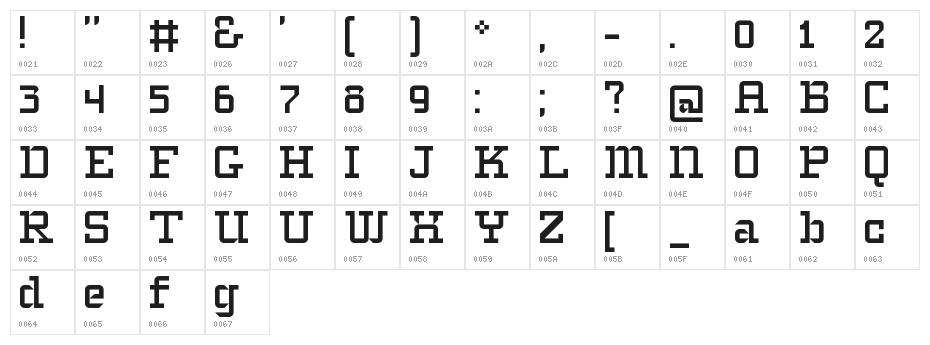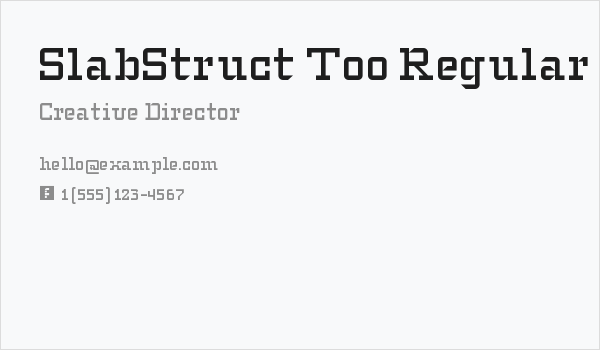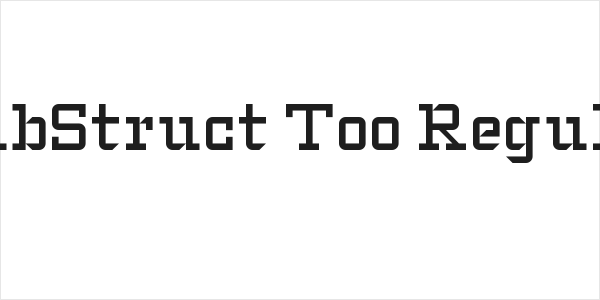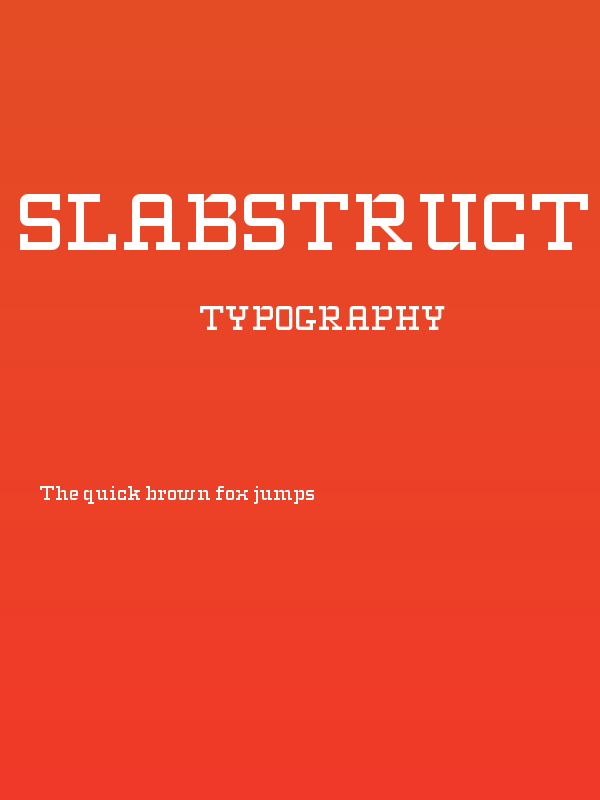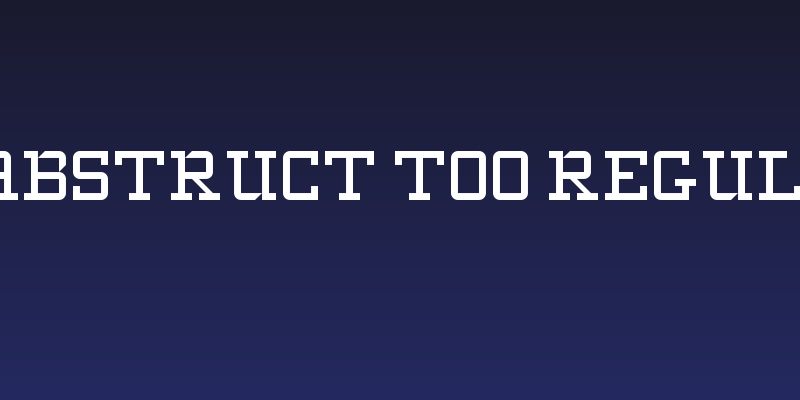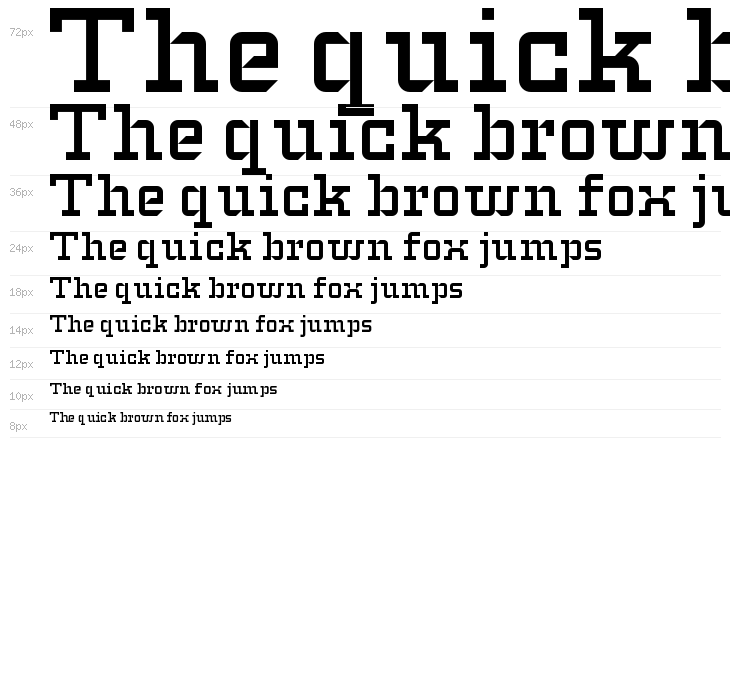
SlabStruct Too Regular Font
SlabStruct Too Regular Description
This font features a robust and structured design, characterized by its slab serif style. The letters are bold and have a strong presence, with thick, block-like serifs that give it a sturdy appearance. The uppercase and lowercase letters maintain a consistent weight, providing a uniform look across the alphabet. The numerals are equally bold, ensuring readability and impact. Special characters are designed with the same attention to detail, making them stand out while remaining cohesive with the overall font style. The font's geometric shapes and clean lines make it suitable for projects that require a modern yet classic touch.